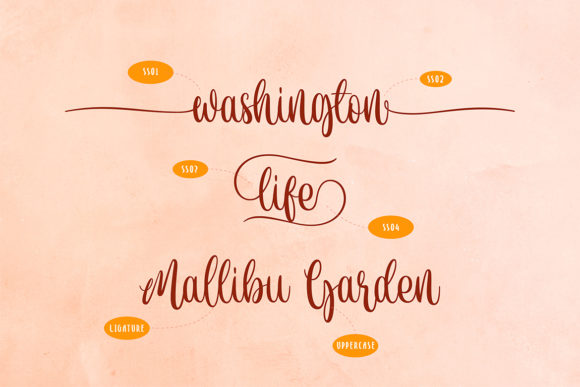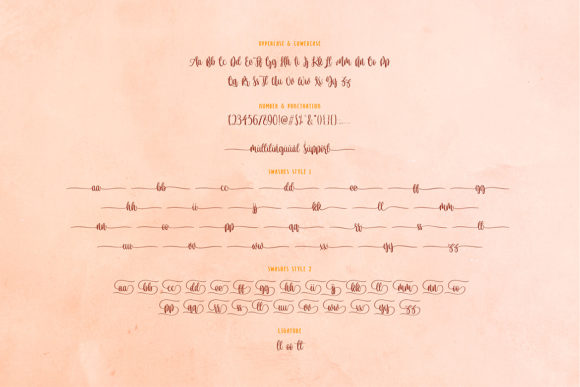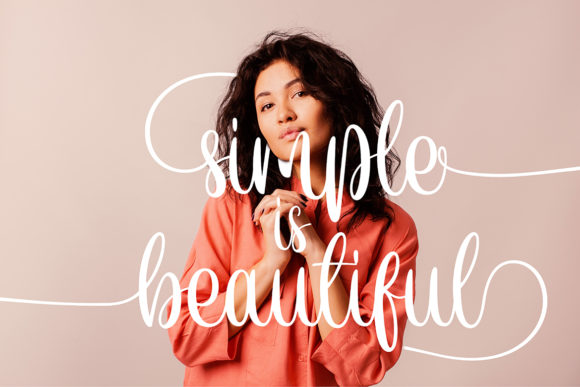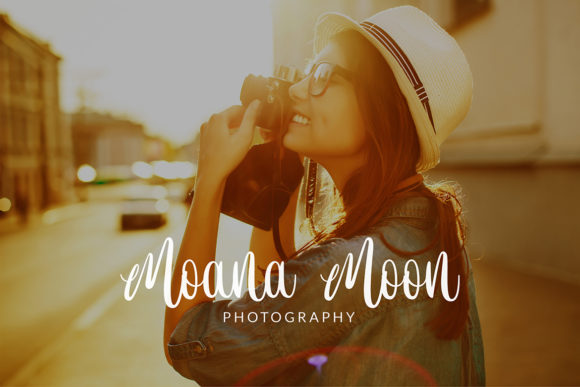
The Delicate Charm of De Floras Font: A Designer’s Dream
I still remember the wedding invitation project that made me fall in love with De Floras font. I was working late one evening, trying to find the perfect handwritten font to complement the elegant design. As I scrolled through my font library, De Floras caught my eye, and I knew instantly that it was the one. Its delicate and distinct handwritten style added a touch of sophistication to the invitation, making it truly unforgettable.
An Honest Review of De Floras Font
What I Love About De Floras ✨
- 💕 Delicate and elegant handwritten style, perfect for wedding invitations, thank you cards, and quotes.
- ✅ Highly legible, even in smaller font sizes.
- 🎨 Versatile and adaptable to various design projects, from logos to business cards.
- 👍 Well-suited for both digital and print designs.
- ⚠️ Limited availability of stylistic alternates, which might restrict design experimentation.
- 🤔 Not ideal for body text or lengthy paragraphs, as it’s best suited for headlines and titles.
The Designer Inspiration Behind De Floras
De Floras font was designed with the intention of capturing the elegance and sophistication of handwritten calligraphy. The designer aimed to create a font that would evoke a sense of refinement and luxury, while still being approachable and personal.
| Font Name | De Floras Font |
| Author | Dikas Studio |
Q: What type of projects is De Floras best suited for?
A: De Floras is perfect for wedding invitations, thank you cards, quotes, greeting cards, logos, business cards, and any other design project that requires a handwritten touch.
Q: Is De Floras available in multiple languages?
A: De Floras may not support all languages, but it does include a range of characters and glyphs to accommodate various languages.
Q: Can I use De Floras with OpenType features?
A: Yes, De Floras supports OpenType features, such as ligatures and stylistic alternates, which can be accessed in compatible design software.